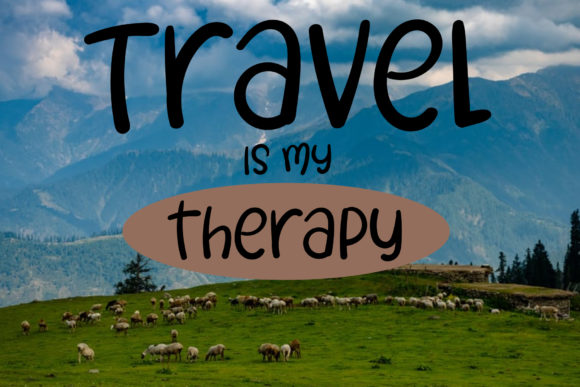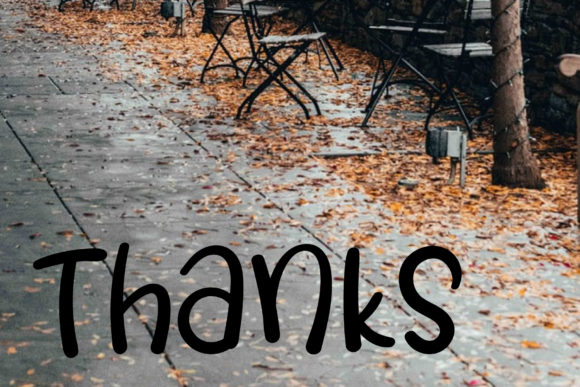
Ninja Font
db-ku.com - Script & Handwritten -- Ninja is a sweet and round lettered handwritten font. Its natural and romantic style makes it incredibly fitting to a large pool of designs. The only limit is your imagination!